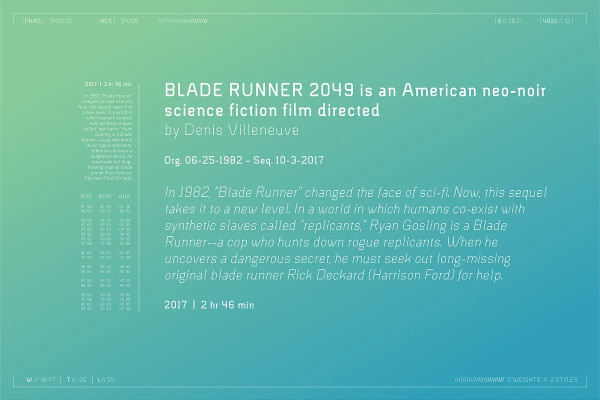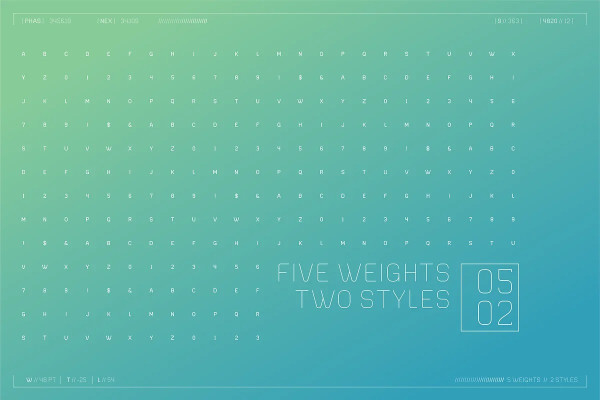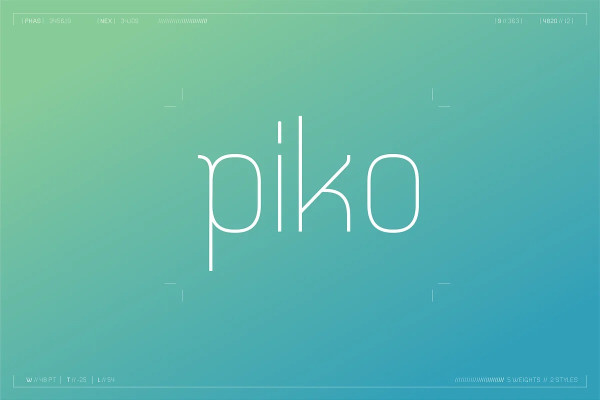
Piko Font
Piko Font – A modern elegant sci-fi inspired typeface that comes in five weights (Light, Regular, Medium, Bold, Heavy) and two styles (Regular and Oblique). This typeface works great with large body copy or as a display typeface. Perfect for any modern design project with space or sci-fi inspired themes.